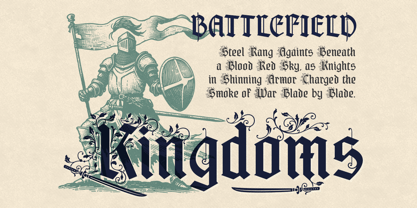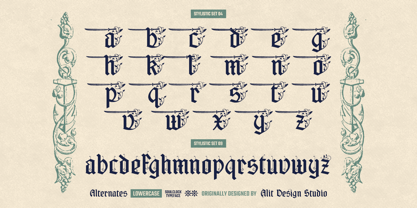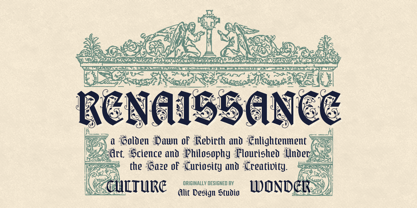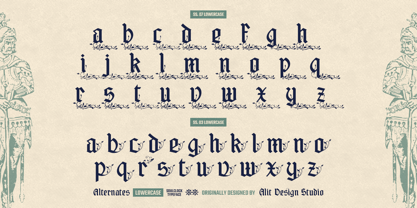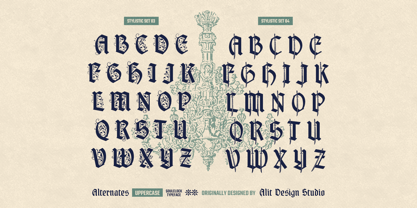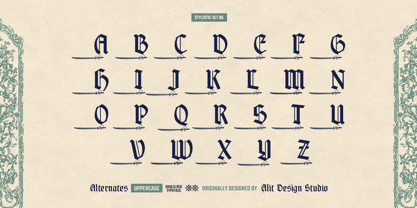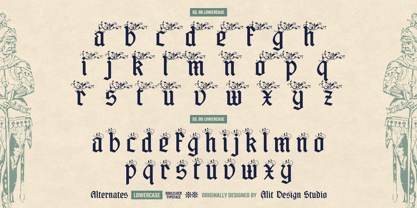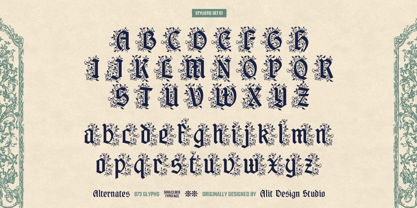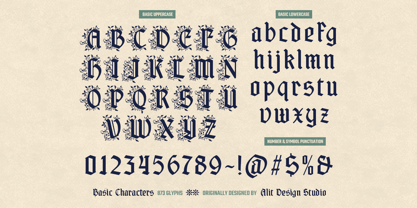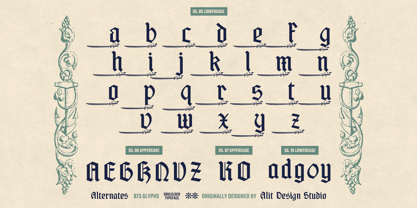
Soul Clock
Soul Clock Typeface
A Luxurious Blackletter Typeface with Ornamental Elegance
Introducing Soul Clock Typeface — a stunning ornamental blackletter font that blends the timeless mystique of classic Gothic script with the flowing grace of nature-inspired embellishments. Originally crafted by Alit Design Studio, Soul Clock is not just a typeface; it's a design experience, built to evoke the emotion and artistry of medieval calligraphy and Baroque decor.
🌿 Design Inspiration Soul Clock draws its inspiration from vintage manuscript lettering, embellished with floral swashes and dramatic ligatures. Each character is meticulously designed with intricate vine-like flourishes, giving the typeface a majestic and organic appearance. The result is a beautiful fusion of sharp, angular blackletter structure softened by decorative botanical details — perfect for projects that demand both authority and artistic expression.
🔧 Font Features
• 873 Glyphs: A comprehensive character set, providing endless design flexibility.
• Tons of Alternates: Multiple stylistic variations of key letters to personalize your typography.
• Swashes: Graceful extensions and decorative tails for added flair.
• Ligatures: Unique character combinations to create flowing and natural word shapes.
• PUA Encoded: Easily access all special characters in any software, even those that don’t support OpenType features.
• Multilingual Support: Includes an extensive range of Latin-based characters for international use.
📘 Perfect For Soul Clock is a versatile typeface ideally suited for a wide range of creative and nostalgic applications:
• Classic Book Covers – Bring the feel of ancient tomes and medieval literature to life.
• Tattoo & Flash Design – Perfect for tattoo studios or flash sheets with Gothic appeal.
• Vintage Branding – Give your brand a timeless, heraldic feel.
• Historical Posters & Flyers – Create museum-like layouts or theatrical promotions.
• Certificates, Invitations, and Diplomas – Add an ornate, formal touch to ceremonial prints.
✒️ Stylistic Appeal Whether you're designing a fantasy novel, creating a period-based tattoo sketchbook, or developing a brand with historical depth, Soul Clock delivers authenticity and drama. The combination of decorative elegance and firm blackletter structure makes it ideal for headers, logotypes, book titles, posters, album covers, and anything that needs a commanding, artistic presence.
Revive the spirit of the past with Soul Clock Typeface — where old-world charm meets modern functionality. Perfect for designers who dare to be bold, decorative, and unforgettable.